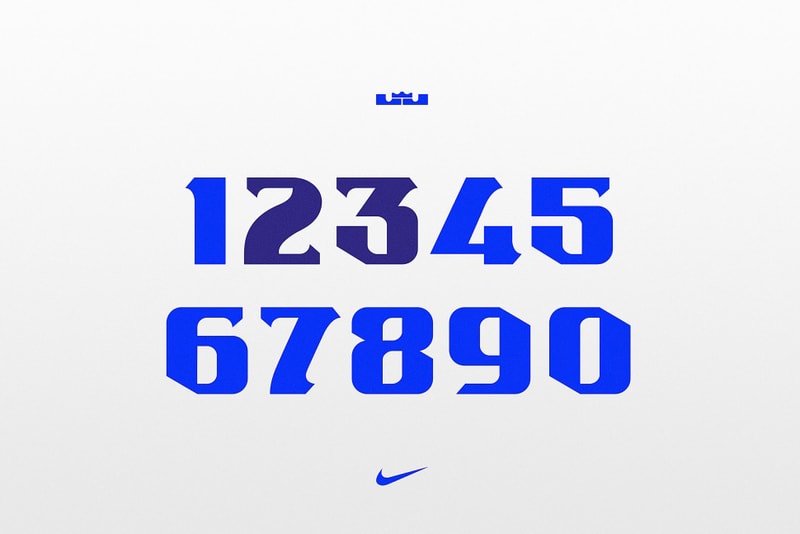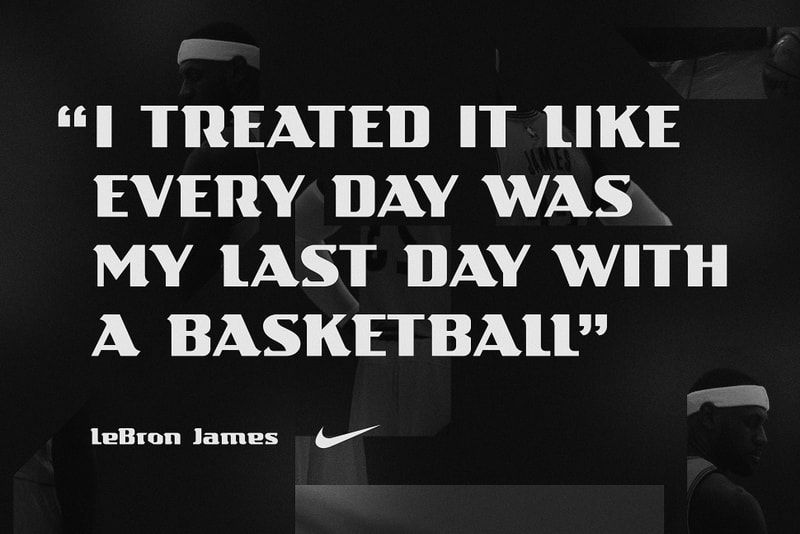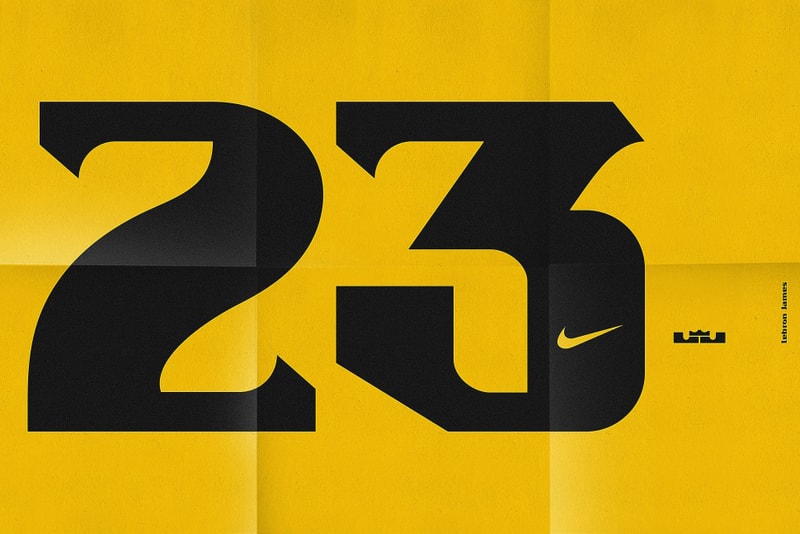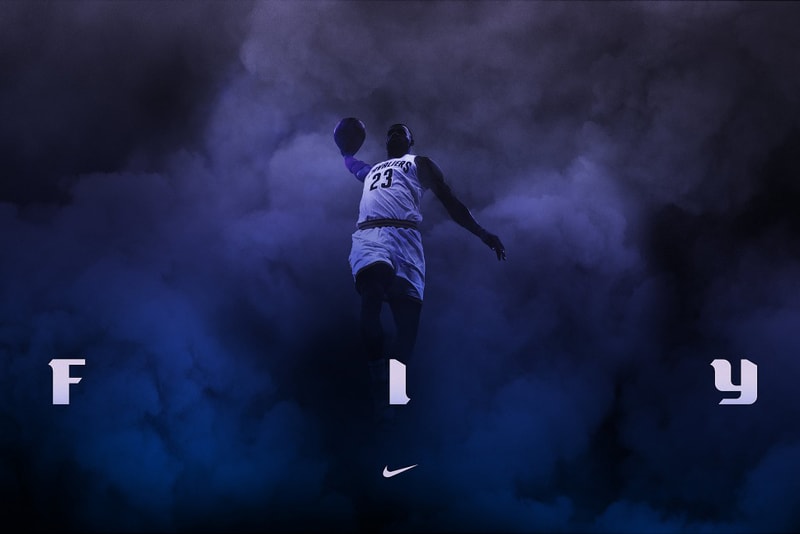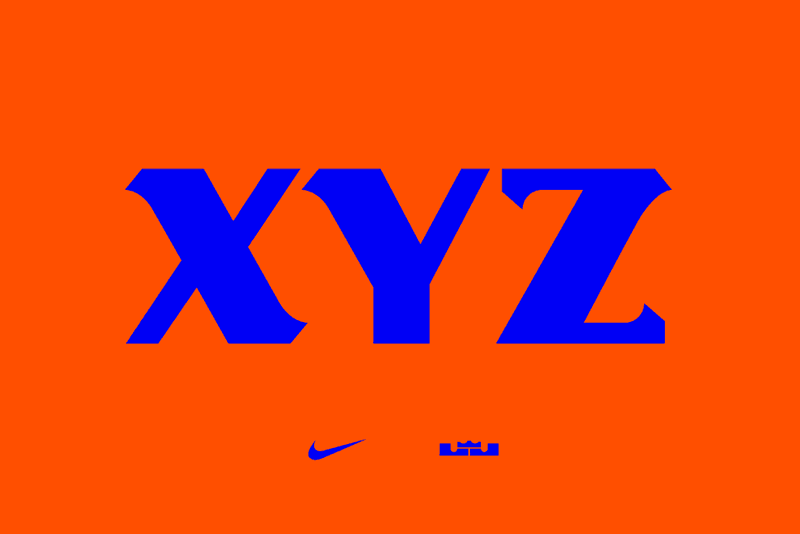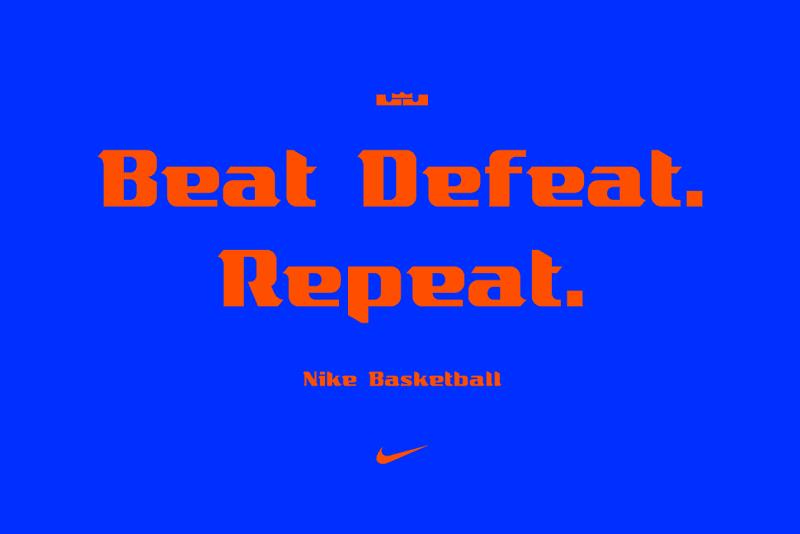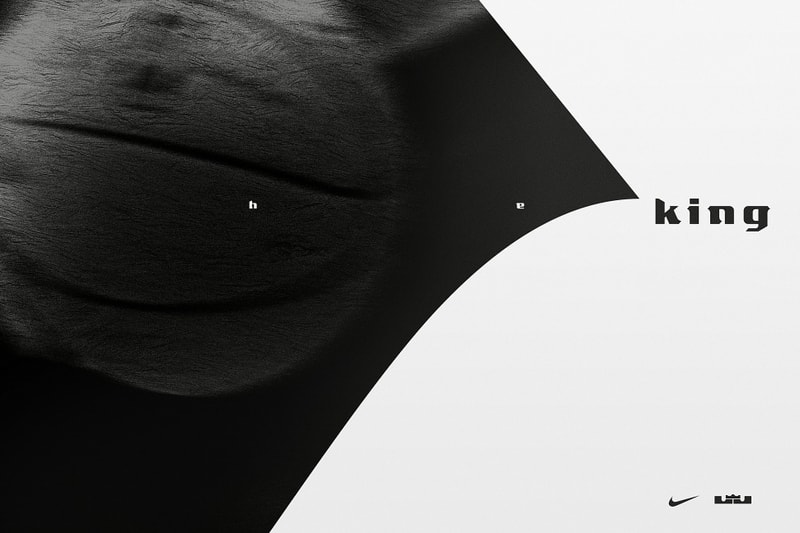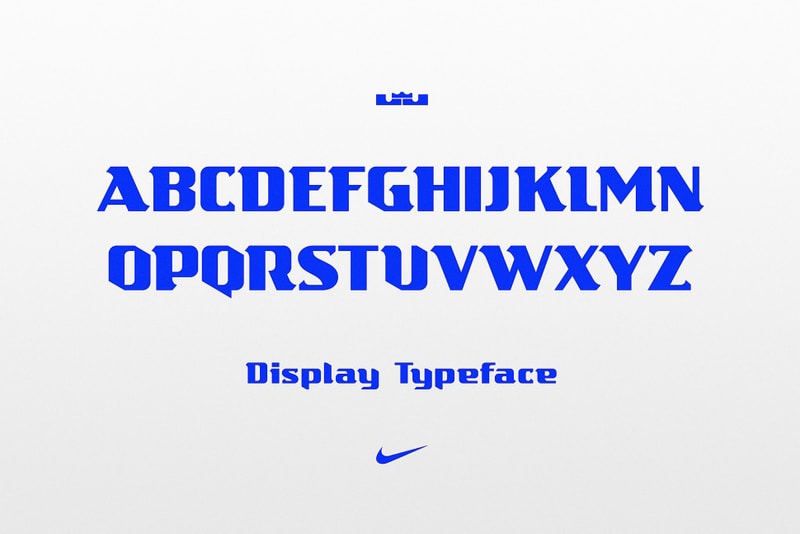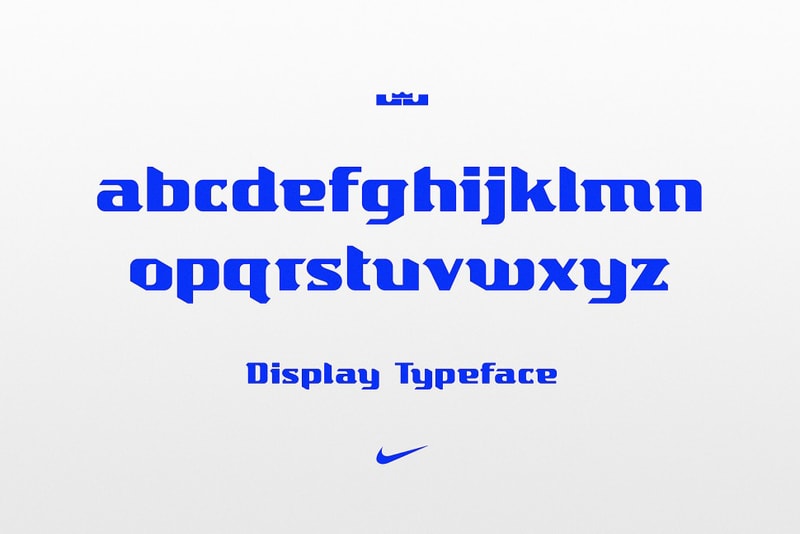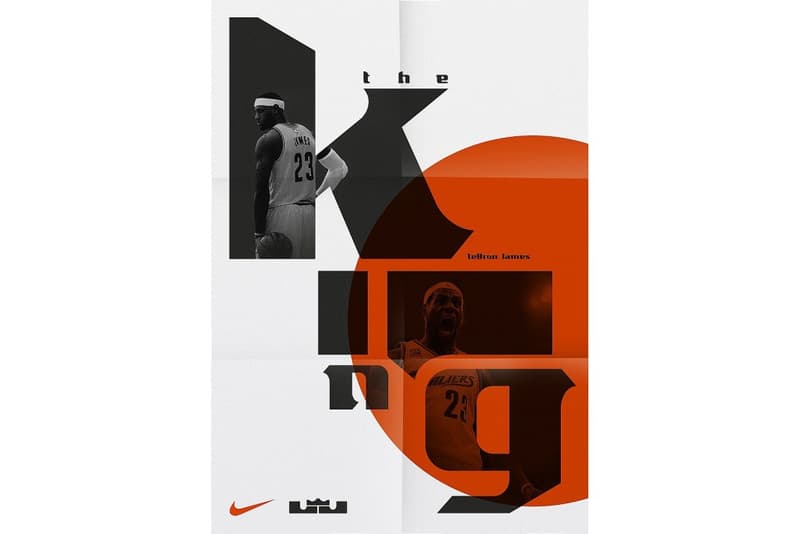
LeBron James Gets His Own Font
“Bold, powerful, sharp yet graceful, with a refined regal edge.”
Creative agency Sawdust is no stranger to designing unique typefaces adapted from storied basketball player logos. Two-man team Jonathan Quainton and Rob Gonzalez previously created fonts in collaboration with Nike Basketball for Kevin Durant and Kobe Bryant based on their namesake sneaker brands. This time, the London-based duo was tasked with producing a typeface for none other than LeBron “The King” James.
In an interview with designboom, Quainton and Gonzalez discussed the conception and ideation of taking elements of the logo to font. “Above all, we wanted it to have a sense of ‘kingliness’ — fierce sweeping serifs, bold, powerful, sharp yet graceful, with a refined regal edge” says Gonzalez. They had the added challenge of ensuring that the LeBron James typeface didn’t clash with Kevin Durant or Kobe Bryant’s since they would all exist within the same space, yet still giving it a look and feel exclusive from the others. View the concepts in the slideshow above and head over to designboom for the full interview.